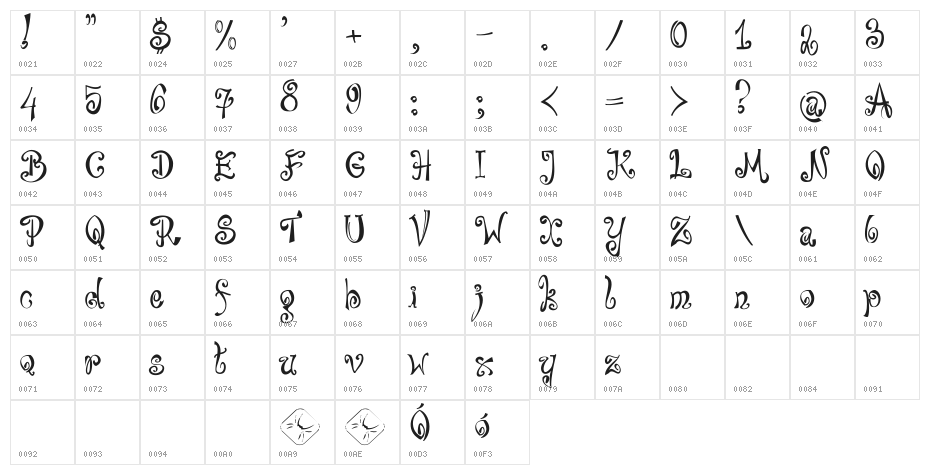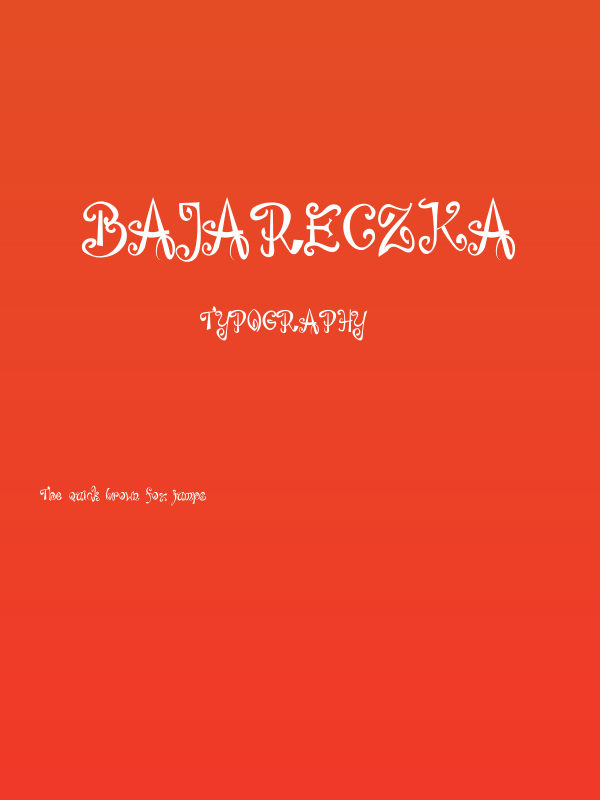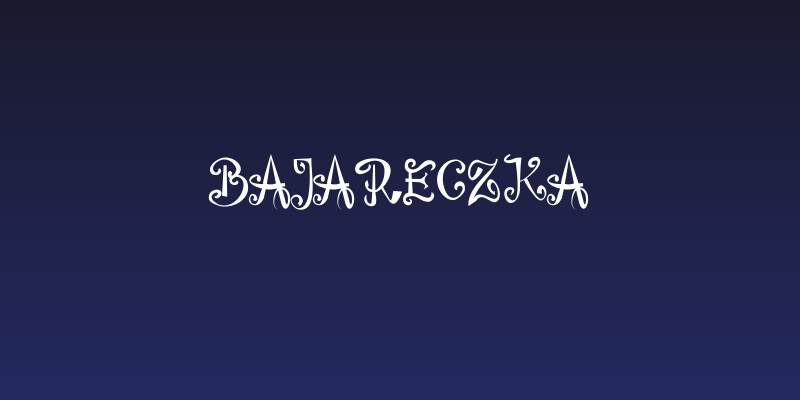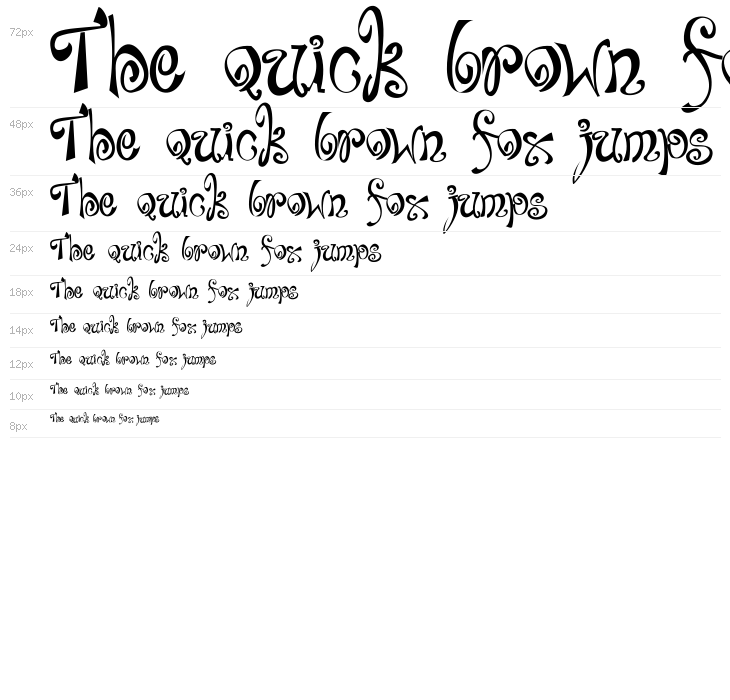
Bajareczka Font
Bajareczka Description
This font is a highly decorative and whimsical typeface, characterized by its intricate swirls and loops that embellish each letter. The uppercase letters are particularly ornate, with exaggerated curves and flourishes that give the font a playful and artistic feel. The lowercase letters maintain the same decorative style, ensuring consistency throughout the typeface. Numbers and special characters are equally embellished, making them stand out with their unique and creative designs. This font is perfect for projects that require a touch of elegance and creativity, such as invitations, posters, or artistic branding.
| Proposed Projects | Ideal for invitations, artistic branding, posters, and creative design projects. |